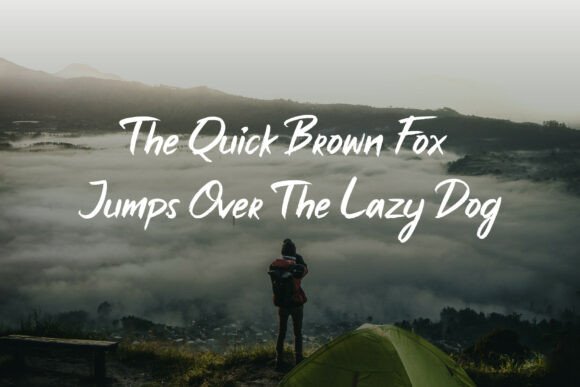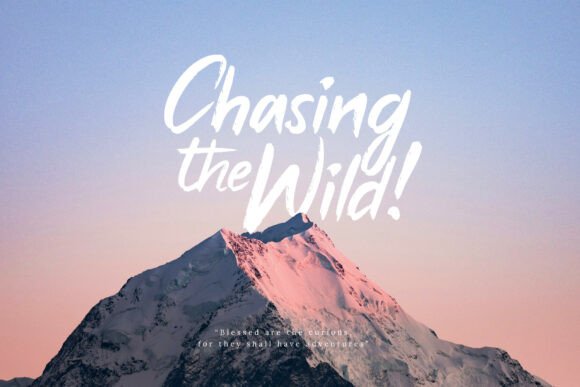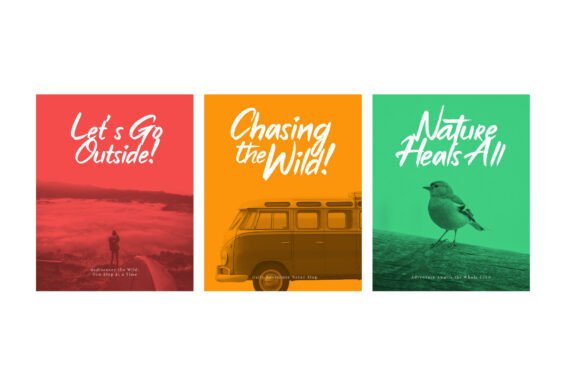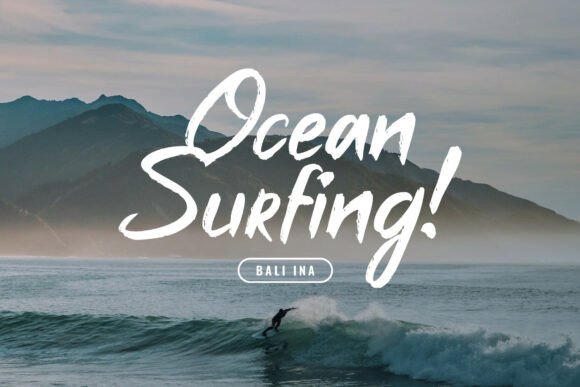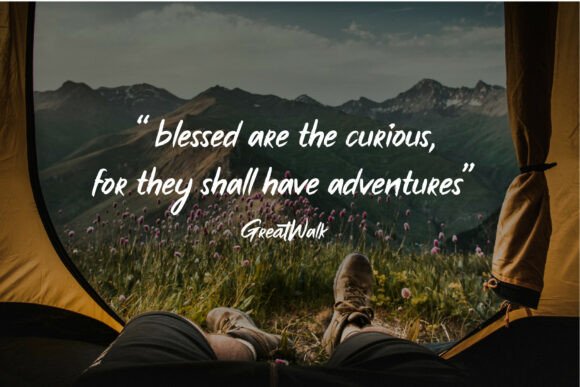
Introduction to Greatwalk Font
You know that feeling when you’re pouring your heart and soul into a creative project, and you just can’t get the design to feel right? Maybe it’s the font, maybe it’s the colors, or maybe it’s the overall vibe – whatever it is, it’s frustrating. That’s where the Greatwalk Font comes in – a game-changing design resource that can bring your creative vision to life.
With its bold, hand-drawn script style and textured finish, the Greatwalk Font is the perfect addition to any design project. Whether you’re working on a high-quality poster design, creating social media graphics, or crafting a logo that screams authenticity, this font is sure to deliver. And the best part? It’s available for free download, making it an accessible resource for designers of all levels.
So why is the Greatwalk Font so valuable for designers? For starters, its raw, unpolished look adds a touch of humanity to even the most polished designs. Plus, its natural flow and rough brush detailing make it perfect for outdoor or lifestyle-themed visuals. And with a transparent background, you can easily layer it over any image or background, giving you endless creative possibilities.
Key Features of Greatwalk Font
- High-quality, professional font suitable for creative projects and design resources.
- Features a transparent background, allowing for easy customization and layering in your design project.
- Comes in a range of sizes, from 12pt to 72pt, to suit various design needs and requirements.
- Designed with a high resolution (300 DPI) for crisp, clear display on various mediums and devices.
- Unique, modern design that sets your creative project apart from others, perfect for making a lasting impression.
Honest Review: Greatwalk Font
As a designer, I’m always on the lookout for high-quality design resources to elevate my creative projects. Recently, I stumbled upon the Greatwalk Font, and I’m excited to share my honest review.
- Clean and modern aesthetic: The Greatwalk Font boasts a sleek, modern design that’s perfect for a wide range of creative projects.
- High-quality font: The font is well-crafted, with clear lines and precise details that make it a joy to work with.
- Transparent background: The font’s transparent background makes it easy to use on a variety of backgrounds, giving you maximum flexibility.
While the Greatwalk Font is a solid design resource, there are a few limitations to consider:
- Limited font weights: The font only comes in a few weights, which may not be ideal for projects that require a range of font weights.
- No bold or italic styles: The font doesn’t include bold or italic styles, which may limit its use in certain creative projects.
Overall, I’m impressed with the Greatwalk Font, and I think it’s a great addition to any designer’s toolkit. While it has some limitations, its high-quality design and transparent background make it a valuable resource for any creative project.
Designing with Greatwalk Font
The Greatwalk Font is a high-quality design resource ideal for creative projects that require a unique touch. With its transparent background, this font can be easily customized to fit any design need. To get started, download the font for free and follow these steps:
Getting the Most Out of Greatwalk Font
To get the most out of the Greatwalk Font, use it in creative projects that require a unique touch. Experiment with different font sizes, colors, and styles to create a visually appealing design. You can also use the font in combination with other design elements to create a cohesive look.
Yes, the Greatwalk Font has a transparent background, making it easy to use it over any background image or color. This feature allows for greater flexibility and creativity in your design projects, especially when working with complex or busy backgrounds.